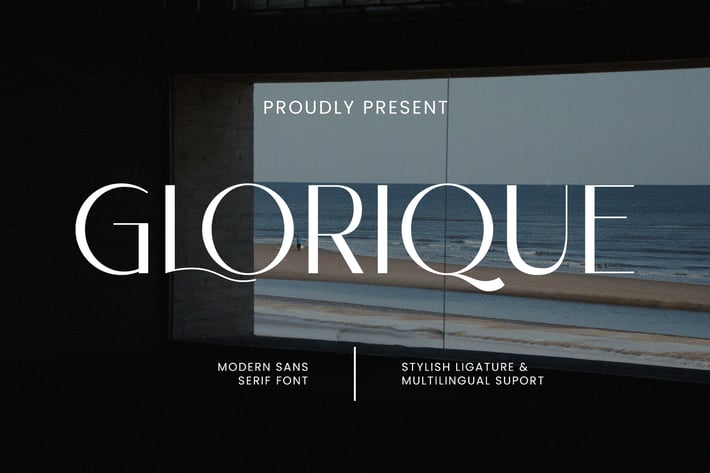
Glorique - Sans Serif Font
Glorique - Sans Serif Font contains a lowercase, uppercase, symbol, and also supports multi-language. There’s a lot of ligature in this font. Glorique - Sans Serif Font also comes with ligatures, stylistic alternates, and many more.
this font is suitable for fashion, branding, catalog, and other design that you want.